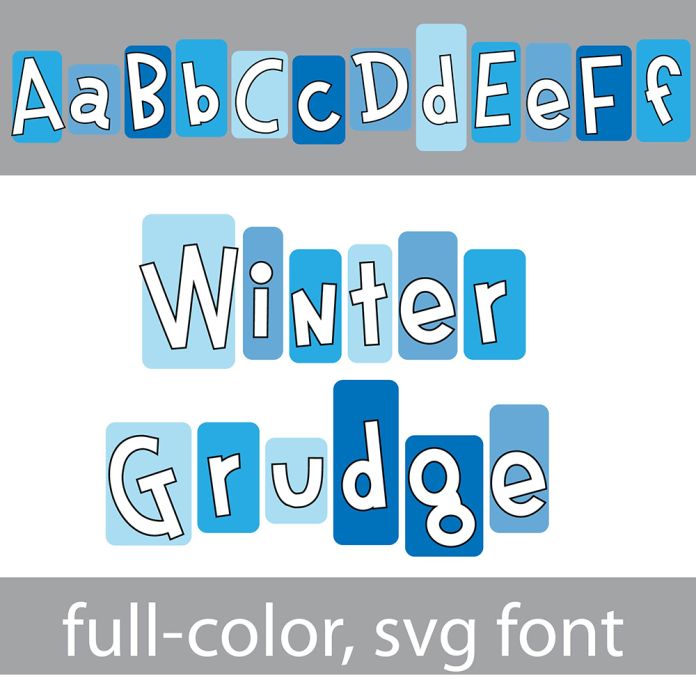
This full-color font features whimsical, child-like lettering in blue, wintery boxes. There is an alt case with an additional color of each letter. This font works best for titles, displays, posters and more. Please note color fonts will show as black in non compatible programs. This font type is compatible with Silhouette Studio.